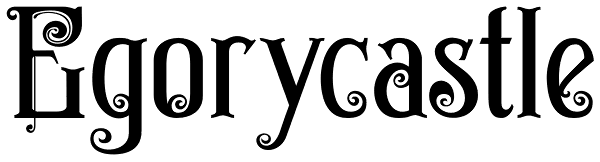
Egorycastle
Egory castle was inspired from the history of the medieval age. The idea was to make us interested to explore in the aspect of art and decorative letters forms. Lots of studies that we have learned from history in middle age and inspiration from...